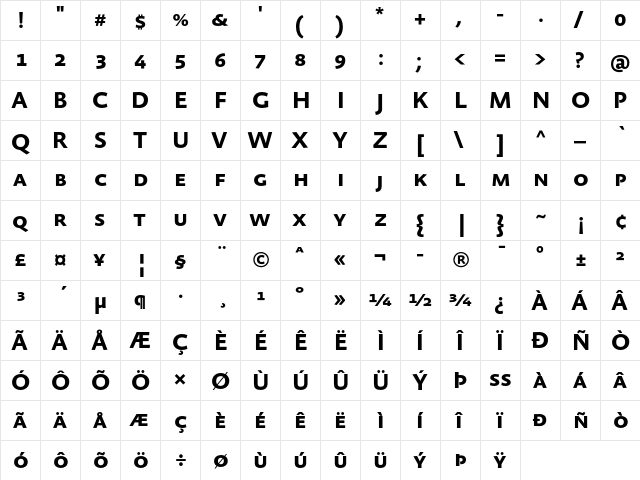
AbsaraSansTF-BoldSC Regular Font Preview
AbsaraSansTF-BoldSC Regular
AbsaraSansTF-BoldSC Regular Font Details
Design Context for AbsaraSansTF-BoldSC Typeface
AbsaraSansTF-BoldSC takes a measured approach to typography — its balanced proportions and neutral character make it a reliable workhorse for both digital and print work. Its bold stroke weight gives it real presence on the page.